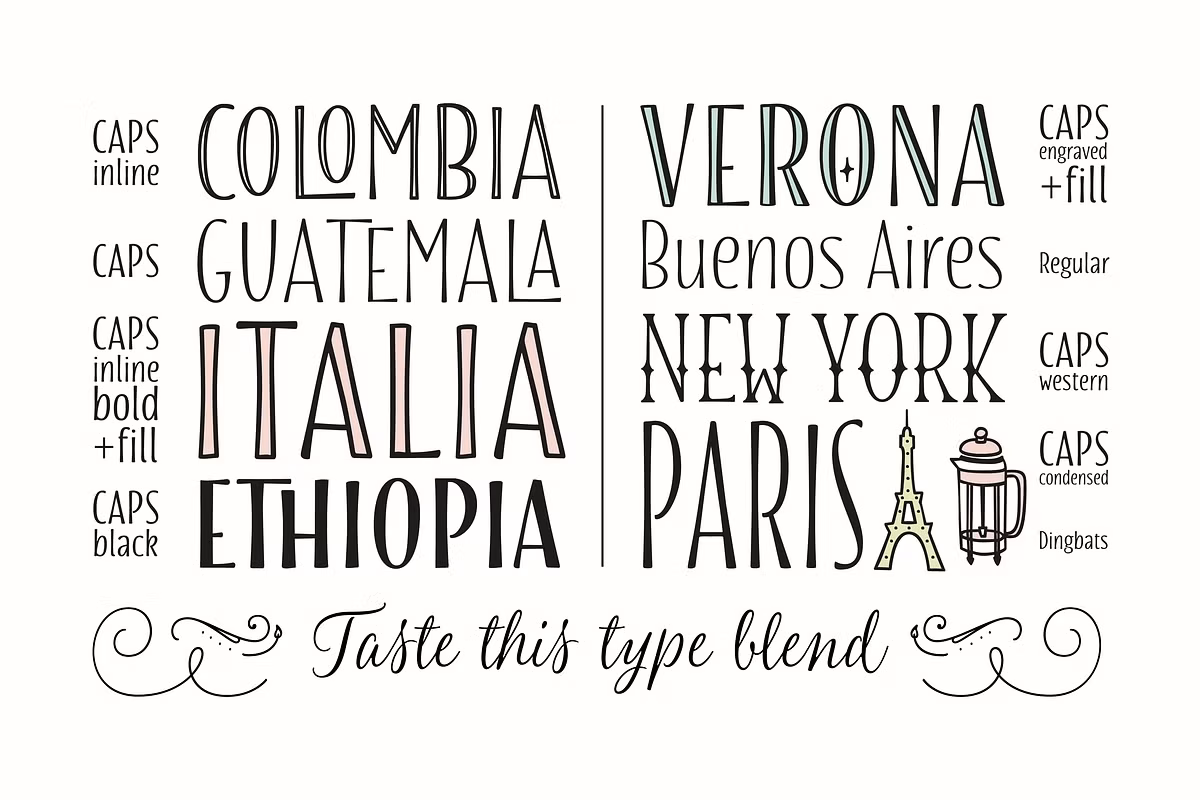
Blend Caps – Display Font Collection Free Download is a bold and stylish all-caps type collection designed to make your headlines, logos, and posters truly unforgettable. Please note, you are required to purchase this font collection for commercial use. It is available for free download for testing and personal projects only.
With a mix of sharp angles, clean lines, and unique character shapes, Blend Caps is perfect for branding, editorial design, packaging, event graphics, and fashion-forward visuals. Each font in the collection offers its own personality while maintaining consistency and boldness across your designs.